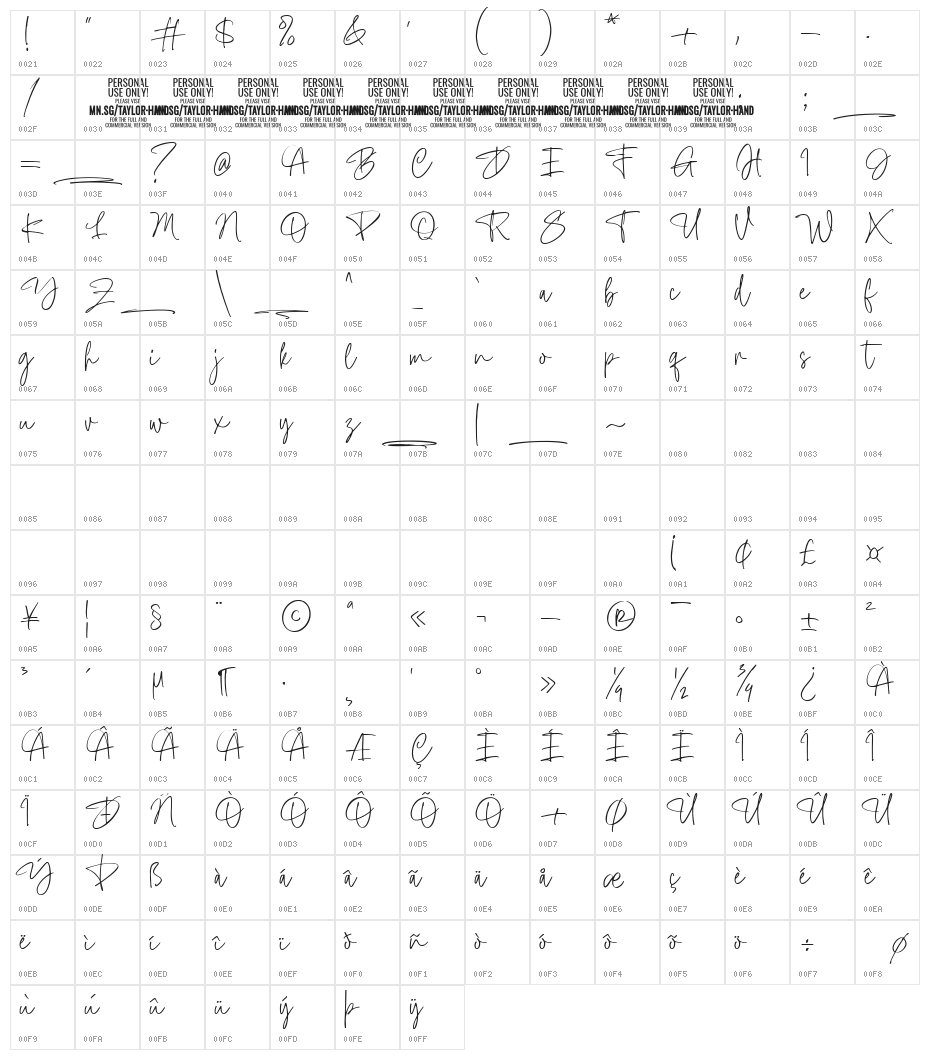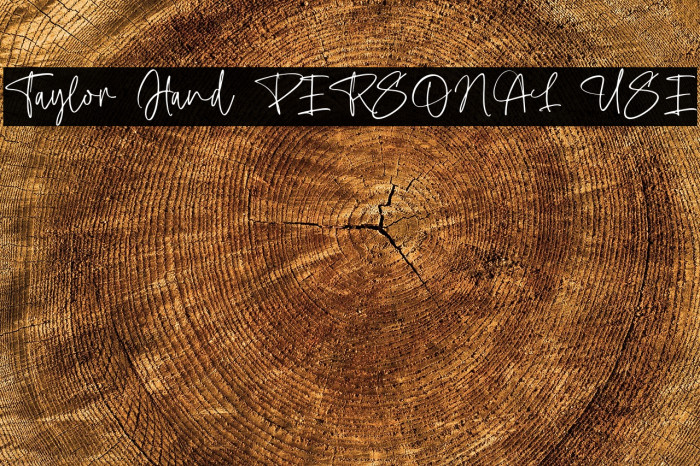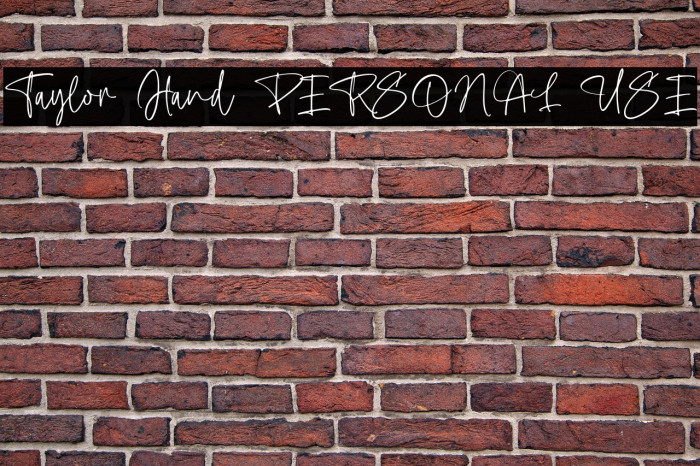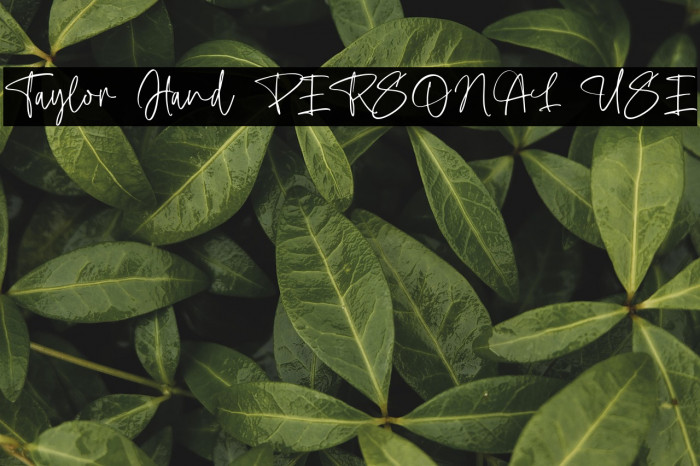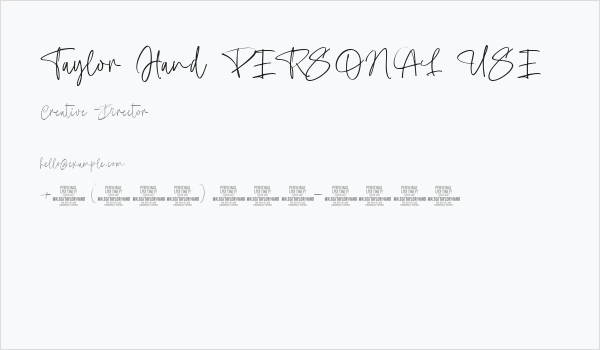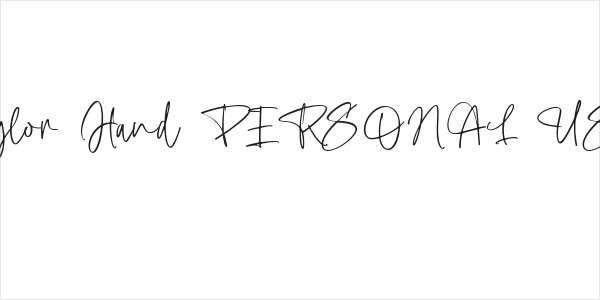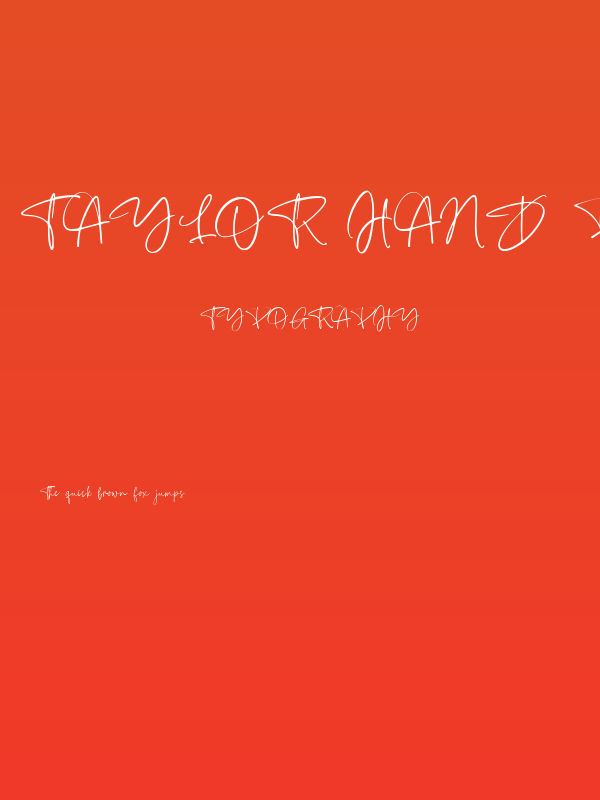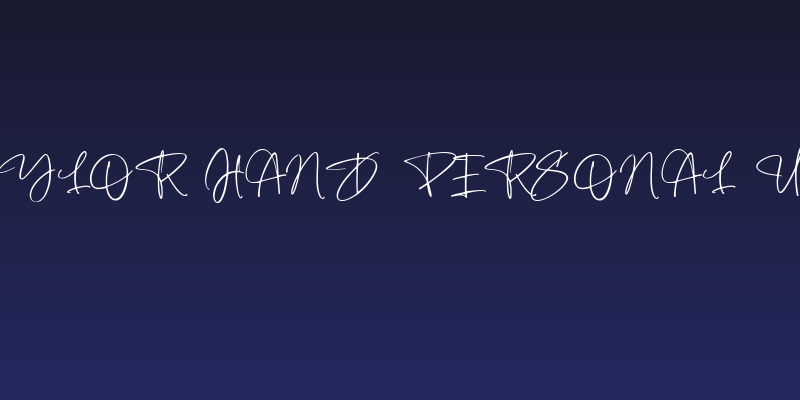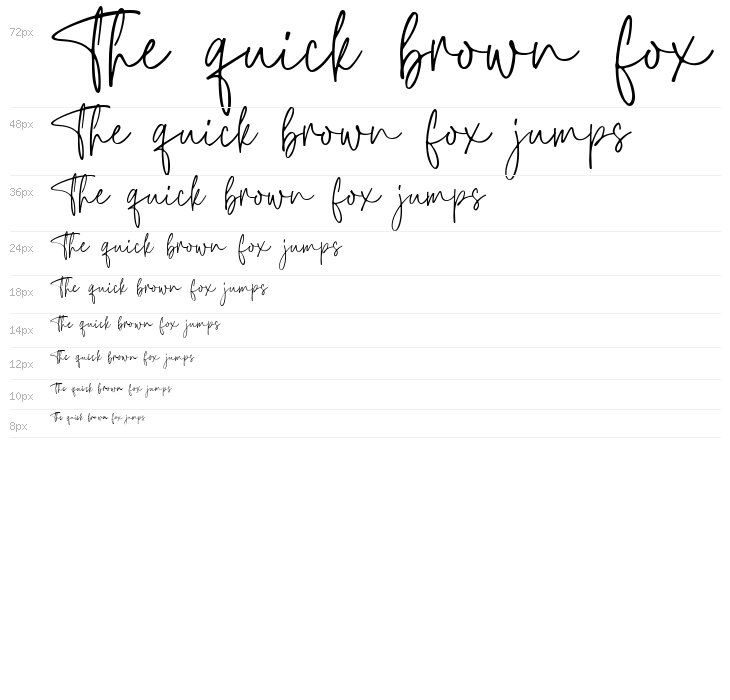
Taylor Hand PERSONAL USE Font
Taylor Hand PERSONAL USE Description
This font exudes a casual, handwritten style with a flowing, cursive design. The letters are interconnected, creating a seamless and fluid appearance. The uppercase letters maintain a consistent height, while the lowercase letters vary slightly, adding to the organic feel. The strokes are smooth and slightly varied in thickness, giving a natural, hand-drawn look. The special characters complement the overall style, maintaining the same fluidity and elegance. This font is perfect for projects that require a personal touch, such as invitations, greeting cards, or branding that seeks to convey warmth and approachability.
| Overall Style | Casual, Elegant |
| Proposed Projects | Ideal for invitations, greeting cards, personal branding, and any project needing a warm, personal touch. |